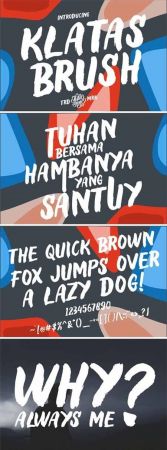
Klatas Brush is a bold and fun handwritten font with a rough style. Get inspired by its unique feel, and turn any design project into a true standout!